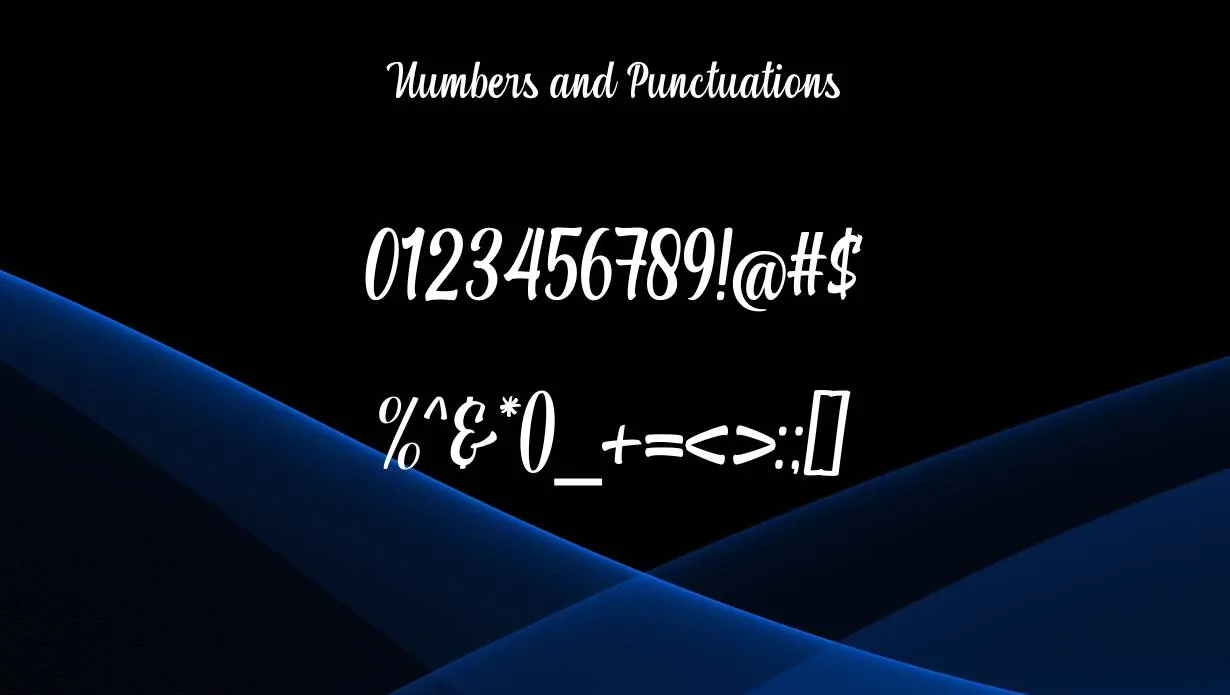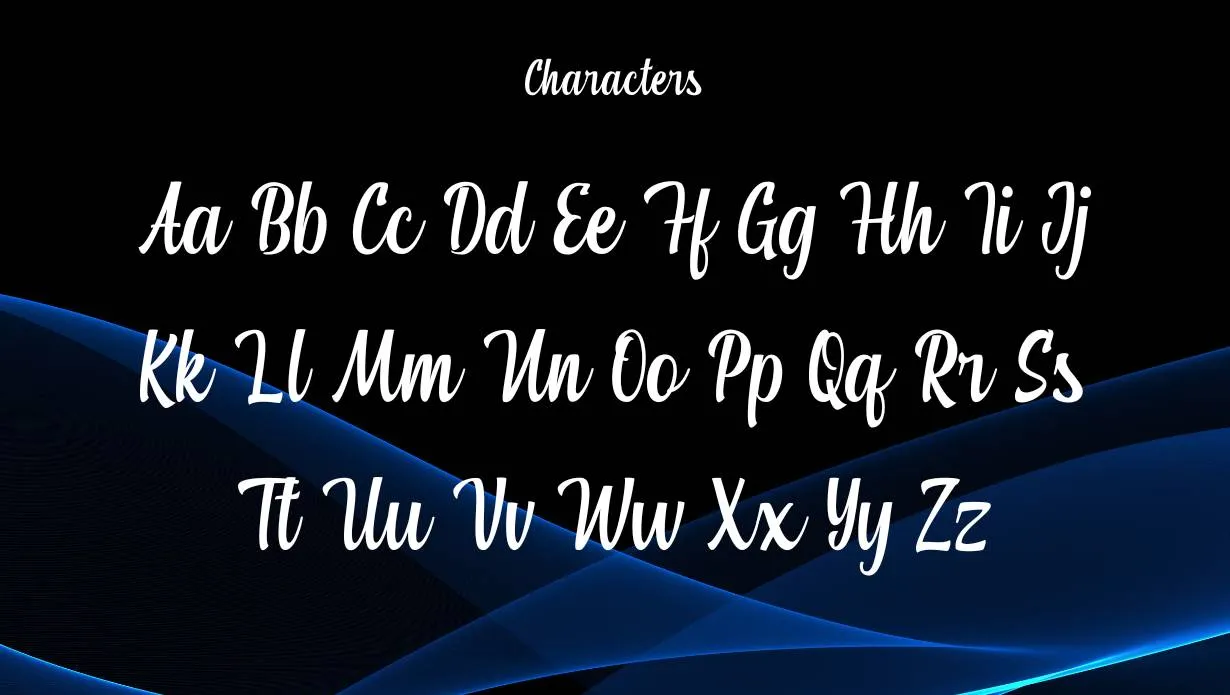
Atarashi Font is a Japanese typeface that was contrived by a well-known Foundry Mytype Studio in 2003. This immaculate typeface can be utilized in MS Word, Adobe, and all operating systems. The conspicuous character of this typeface is the reason for its worldwide fame.
This versatile typeface can be blended with various other fonts but if you like excellence then you must mix it up with Human Sans Font to leave a bright mark on the world.
View of Atarashi Font
Atarashi Font Info
| Name | Atarashi Font |
| Designer | Mytype Studio |
| Style | Handwritten |